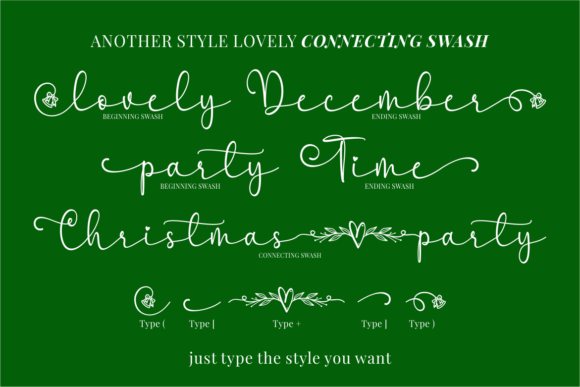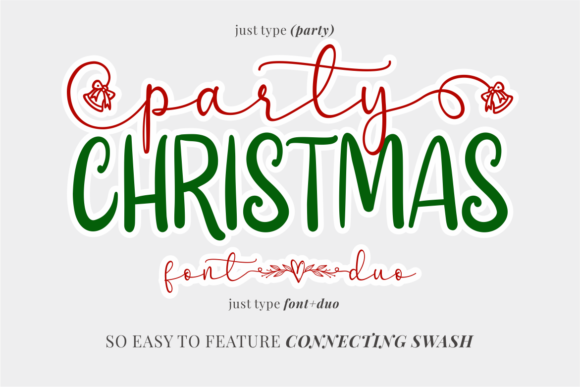
Christmas Party Font
db-ku.com - Script & Handwritten -- Christmas Party is a stylish and delicate handwritten and dingbats duo font. This versatile typeface has a wide spectrum of applications ranging from greeting cards to headlines and is guaranteed to add a romantic feel to your next project.